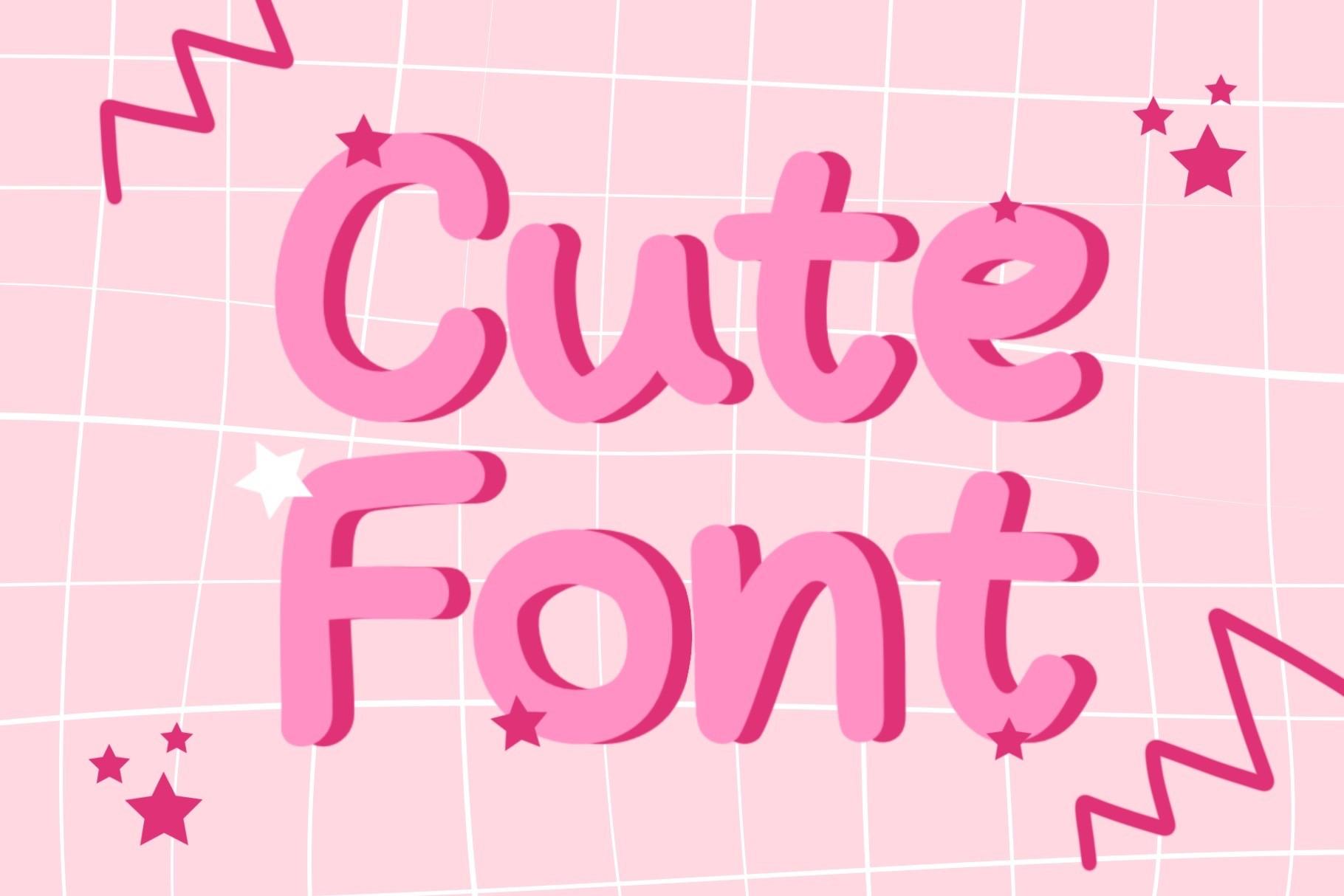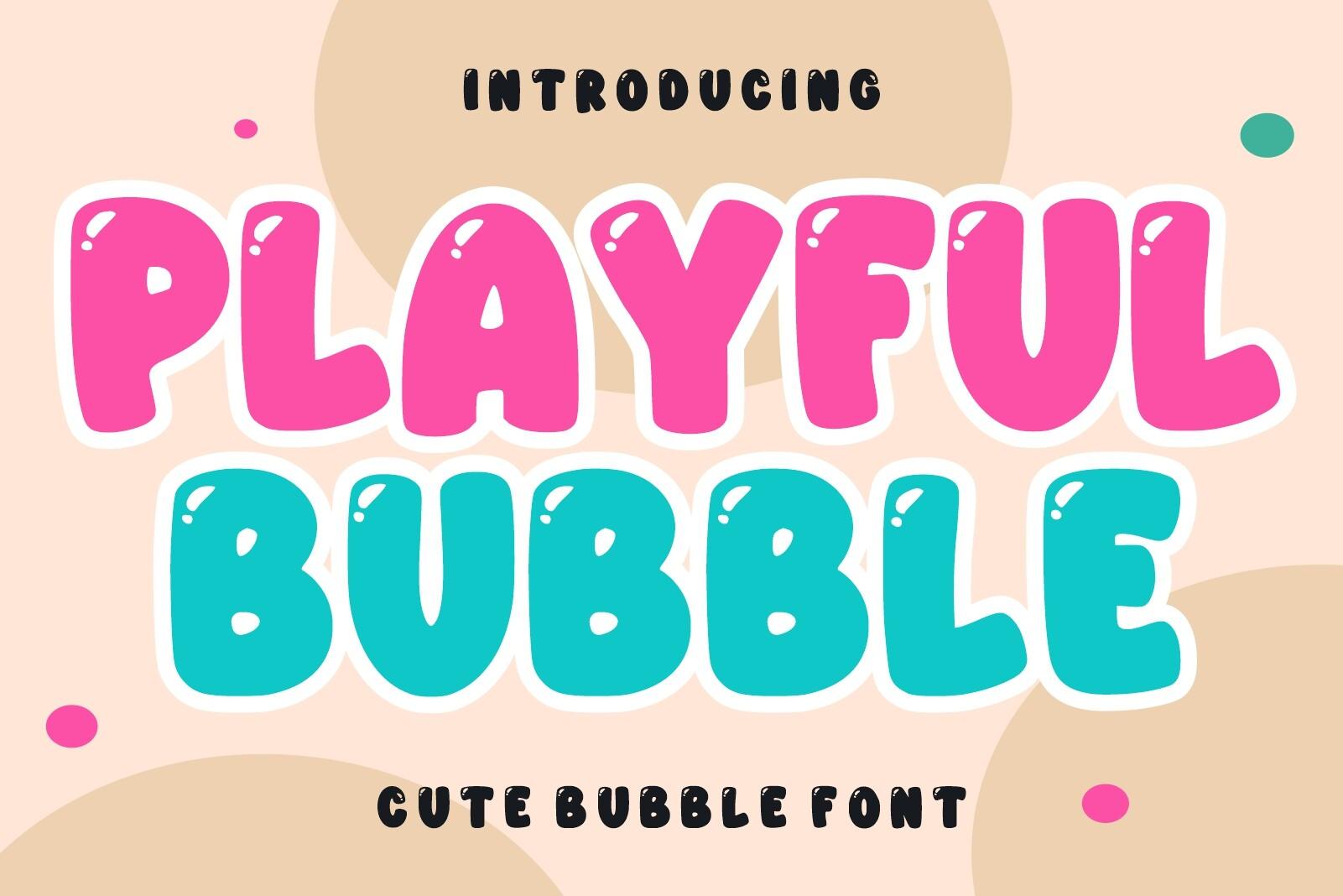
31 Cute Fonts for stickers, planners and kids' designs on a pastel flat lay with stickers, balloons and pens
Cute Fonts: 31 Bubble, Handwritten and Groovy Styles for Stickers, Planners and Kids’ Designs
Cute fonts sell a mood: soft, friendly and a little playful. The 31 cute fonts below cover the styles people actually use: glossy bubble letters for stickers, handwritten and marker fonts for planners and labels, groovy retro display fonts for packaging, and whimsical fonts for invitations and kids’ designs.
Every font here was picked from Creative Fabrica and is shown with its own preview. They are grouped into four styles, and each entry says what the letters look like and where the font works best.
Bubble & Balloon Cute Fonts
Round, glossy and inflated, these are the cute fonts that read at a glance. They work as short titles on stickers, party posters and kids’ merch, and most of them carry an outline that keeps them clear on any background.
1. Playful Bubble Font by Infinity art Studio
Best For: sticker sheets, kids’ party posters, cute T-shirt prints
Glossy pink and teal bubble letters with a bright highlight and a thick white outline. The preview calls it a cute bubble font, and the letters look like candy.
The outline lets it sit on almost any background. Use two colors, as the preview does, and keep the supporting text plain.
Playful Bubble Font by Infinity art Studio, glossy pink and teal bubble letters font preview
2. Cang Cute Font by TaralArt
Best For: digital and physical stickers, kids’ apparel, streetwear
Pink bubble letters with a blue outline and small hearts on each side. The listing describes bubbly, rounded letterforms and names stickers, streetwear and kids’ apparel as uses.
The double outline already works like a sticker border. Set it on a light background and keep the words short.
Cang Cute Font by TaralArt, pink bubble letters with a blue outline and hearts font preview
3. Glossy Bubble Font by Raholco
Best For: short titles, sticker labels, party banners
Rainbow-gradient letters with a shiny, jelly-like surface. The preview states it is all caps, A to Z only, with no numbers and no punctuation, and lists TTF and OTF files.
Because it has no numbers or punctuation, it fits single words and names, not dates or sentences. Put it on a light or pastel background so the gloss shows.
Glossy Bubble Font by Raholco, rainbow glossy bubble capitals font preview
4. Cute Font by MyFontsShop
Best For: girly posters, sticker packs, social media titles
Soft pink rounded letters with a darker pink 3D edge, set on a grid background with stars and zigzags. It looks like a doodle drawn on a notebook.
The 3D edge needs a plain background and a bit of size. Keep it to two short lines, like the preview.
Cute Font by MyFontsShop, soft pink rounded 3D letters font preview
5. Super Cute Font by Font Craft Studio
Best For: kids’ invitations, sticker designs, playful social posts
Inflated pink letters that look like balloons or puffy gel stickers. The listing calls it a sweet color font, and the preview labels it a color bitmap font in OTF and PNG.
As a color font it may not work in every design program, so check the listing before you commit. Use it on a black or dark background, where the pink stands out.
Super Cute Font by Font Craft Studio, inflated pink balloon-style letters font preview
6. Smile Kinds Font by Sakti Avellin
Best For: kids’ brands, cheerful packaging, classroom posters
Flat, chunky letters in coral, orange, mustard and sage with a white outline and small flowers around them. The mixed palette is part of the preview.
The colors come from the preview design, so recolor the letters to match your palette. The rounded shapes are friendly and stay clear at small sizes.
Smile Kinds Font by Sakti Avellin, chunky multicolor rounded letters with flowers font preview
7. School Lovely Font by Anto (7NTypes)
Best For: book covers, classroom decor, friendly packaging
Bold rounded capitals in red, yellow, green and blue with a navy outline, surrounded by school-supply doodles in the preview. The listing suggests a book cover or a pop of color on brand packaging.
If you only try three, take one from each direction: Playful Bubble Font by Infinity art Studio for stickers, Oakleigh Font by Pukka De for planners and printables, and Barbie Cute Font by Kama Studio for retro posters. Once you see how each behaves in your own layout, the rest of the list is easy to narrow down.